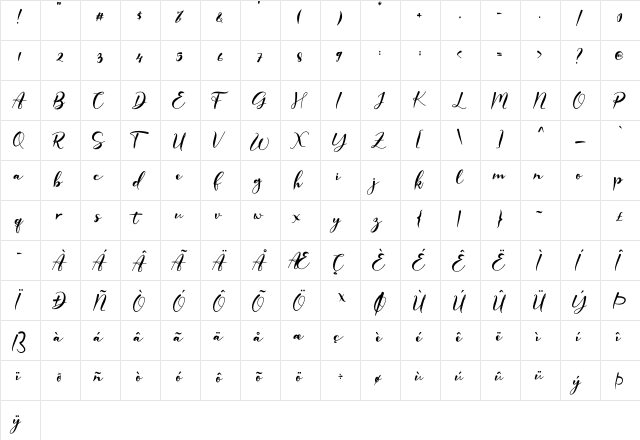
GISELLE Regular
| Designer | Nissa Nana |
Design Context for GISELLE Typeface
GISELLE is a composed and adaptable typeface that performs quietly and consistently across a wide range of design contexts.